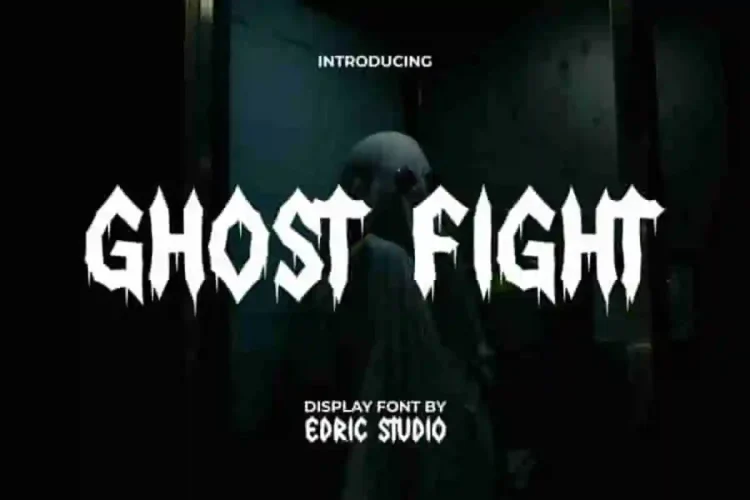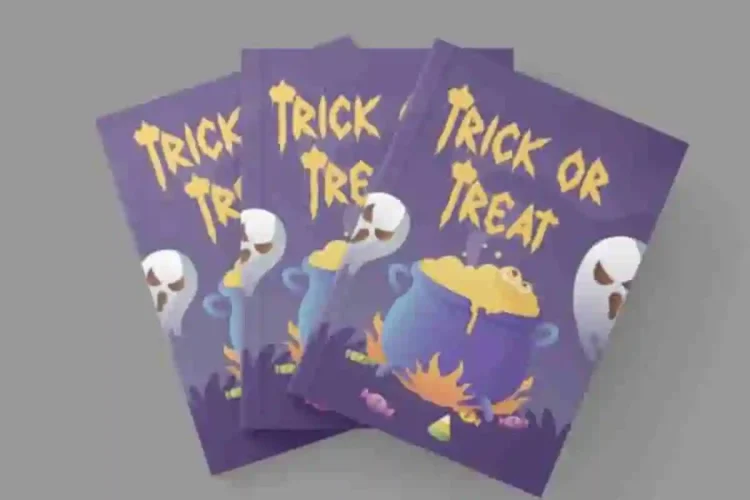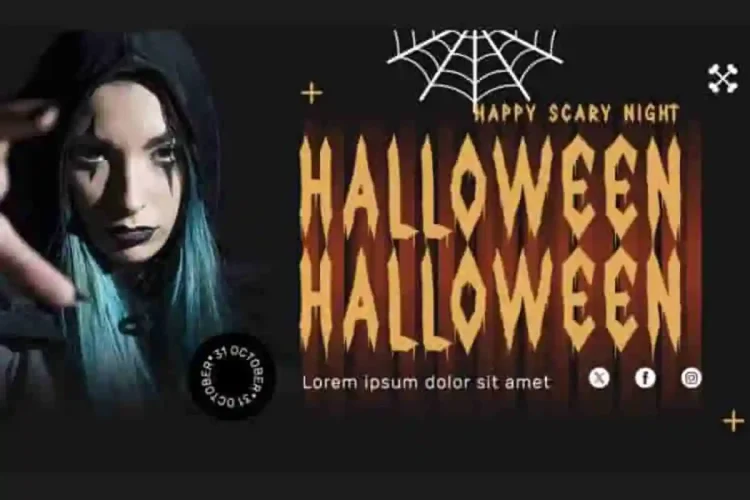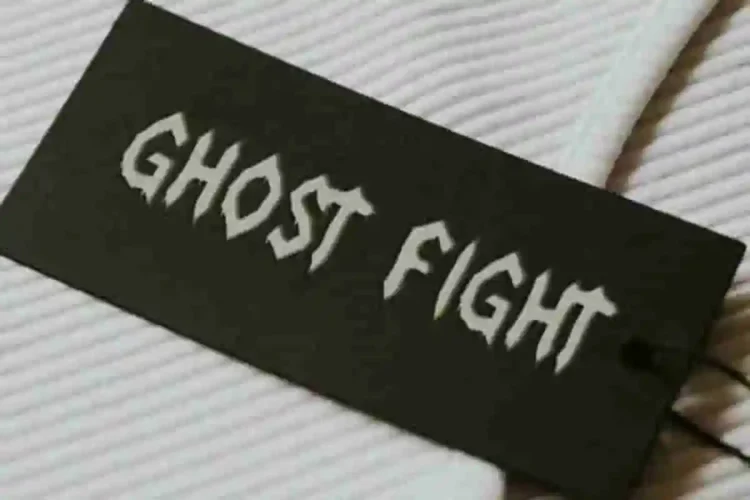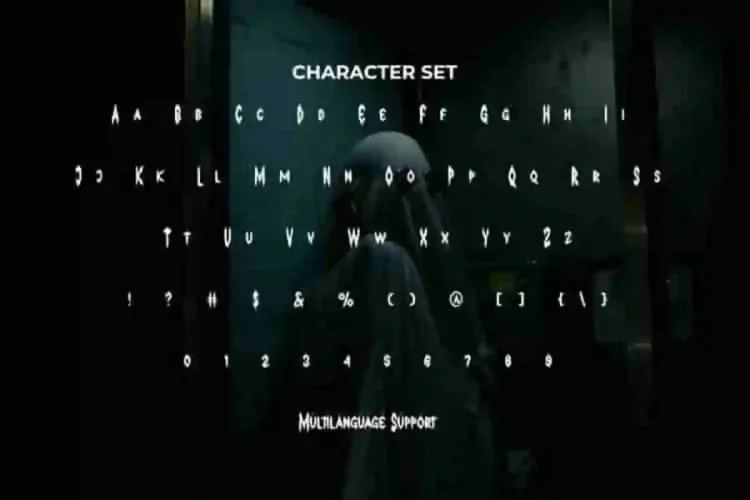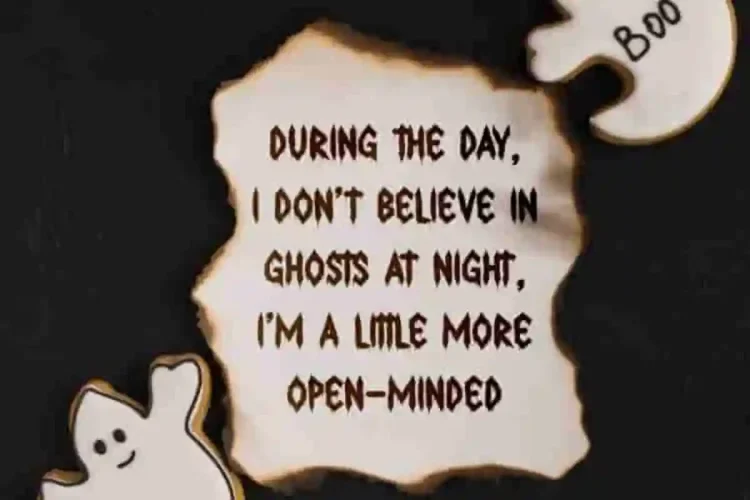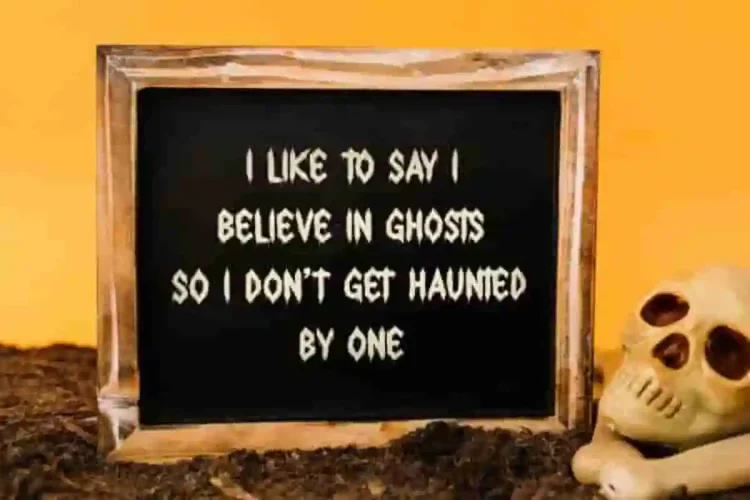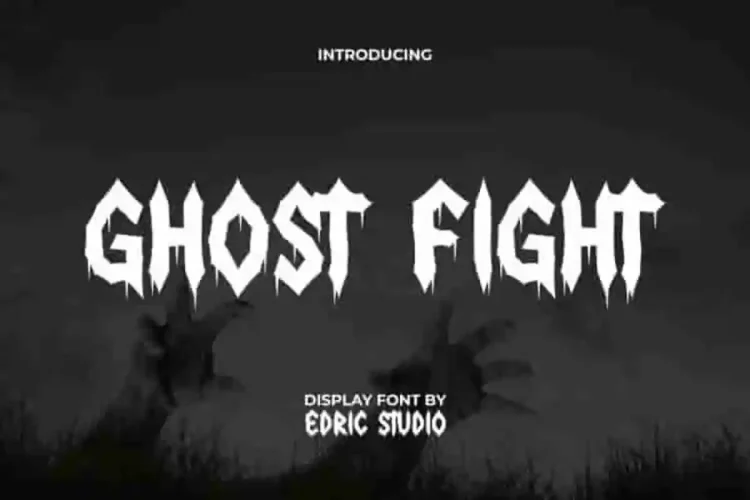
Ghost Fight Font is a horror display font with a blackletter theme made in a scary style. Perfectly crafted to produce letterforms that look truly spooky and give you goosebumps! This font will be a great choice for background text art, brand identity, covers, headlines, invitation cards, posters, printing, quotes, tags, titles, templates, websites and more.
Ghost Fight Display Font Perfectly versatile, Ghost Fight Font is the go-to choice for horror posters, Halloween invitations, dark branding, gothic logos, apparel designs, album covers, merchandise, websites, and more.
Ghost Fight Blackletter Font a playful typeface with unique decoration in each character.Combine different characters for a bespoke, handcrafted feel. It’s tested to work well in the Adobe Apps (Illustrator, Adobe InDesign, Adobe Photoshop) even work on Microsoft Word. All of these characters are available through the glyph panel, moreover each letter has its own unicode (PUA) so you can access all the characters easily.